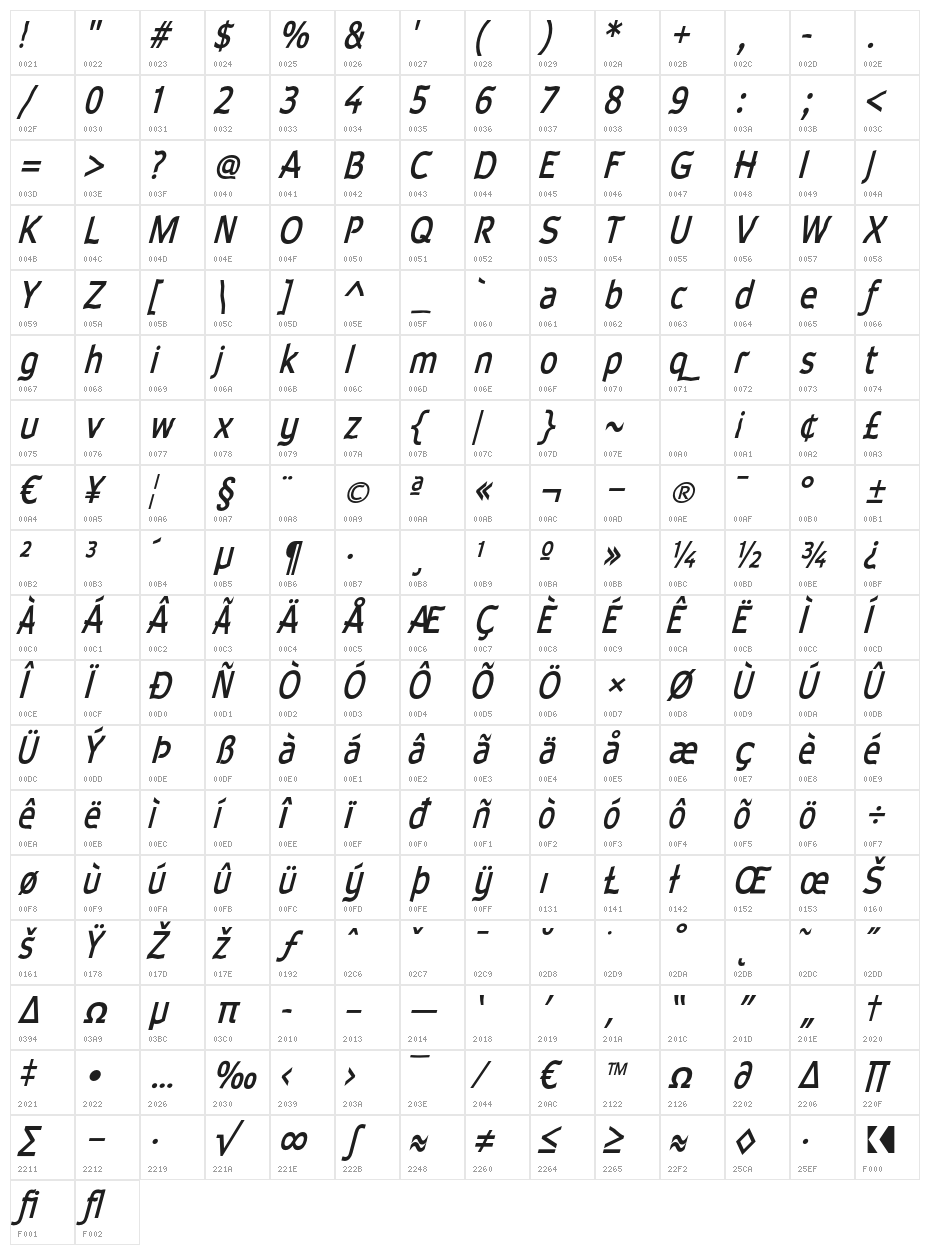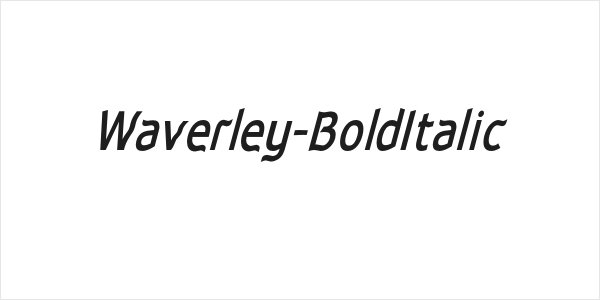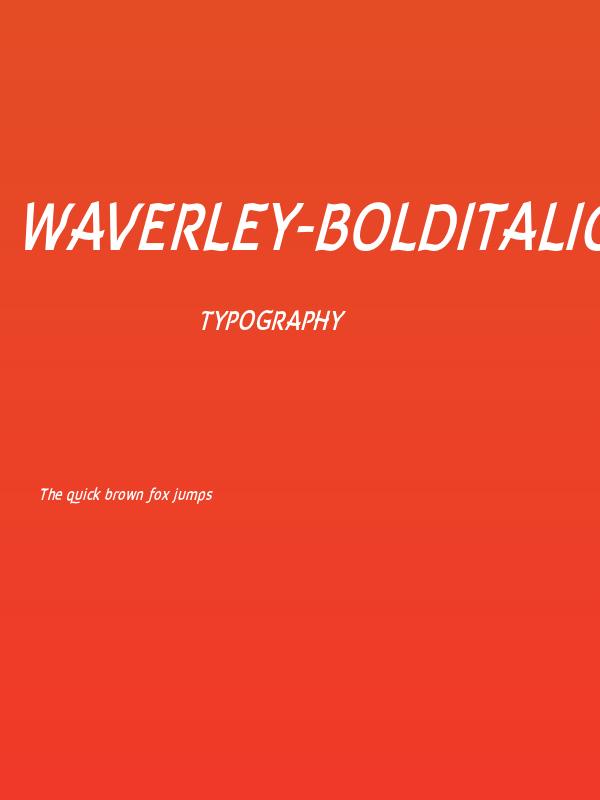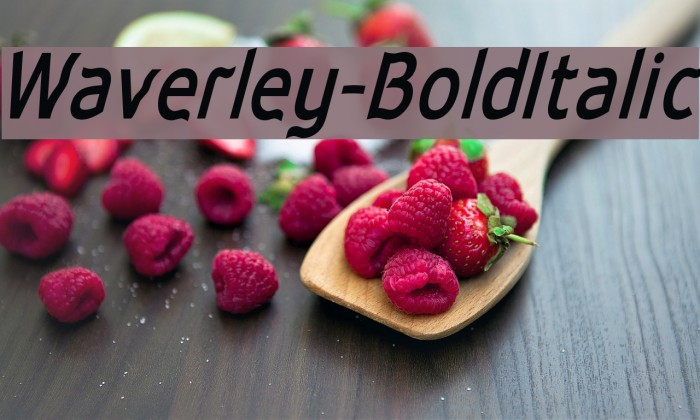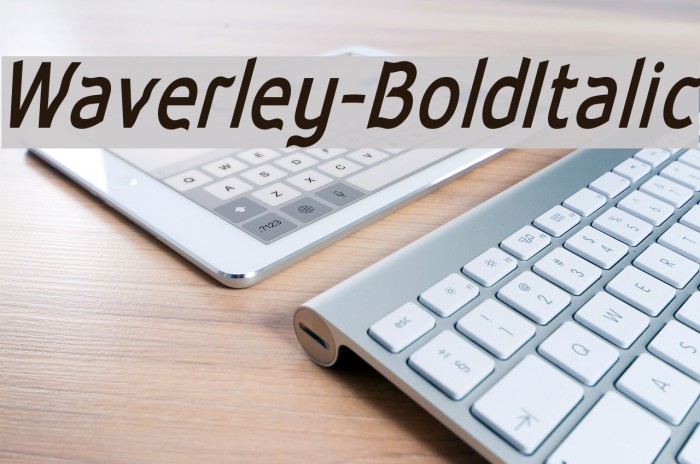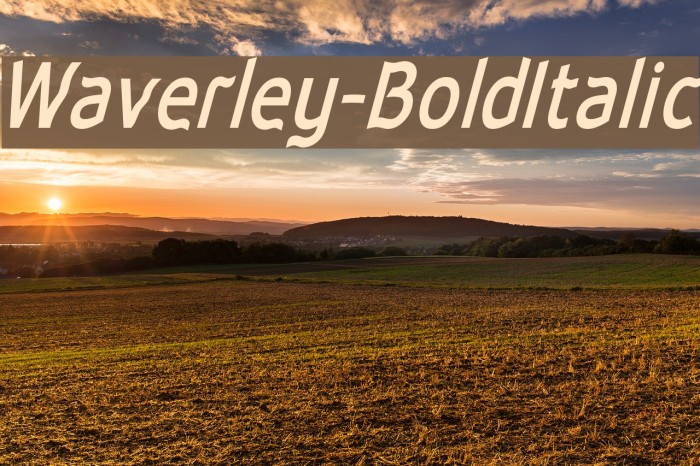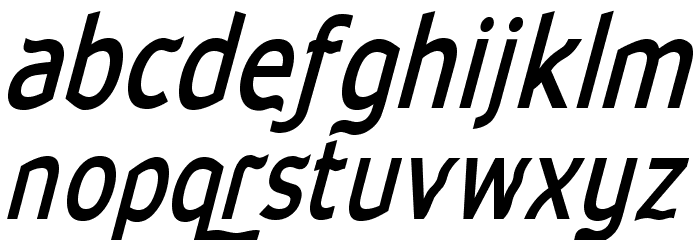
Waverley-BoldItalic Font
Waverley-BoldItalic Description
This font features a dynamic and energetic style with a pronounced italic slant, giving it a sense of movement and fluidity. The characters are bold, with a consistent stroke weight that maintains readability while adding a touch of flair. The uppercase letters are slightly taller than average, providing a commanding presence, while the lowercase letters maintain a smooth and cohesive flow. The numerals are well-proportioned, ensuring clarity in numerical data. Special characters are distinct and well-integrated, enhancing the font's versatility. Overall, this font combines modern aesthetics with a hint of traditional elegance, making it suitable for a variety of design applications.
| Use Case | Headlines, Logos, Branding |
| Proposed Projects | Ideal for branding, advertising, headlines, and editorial design. |